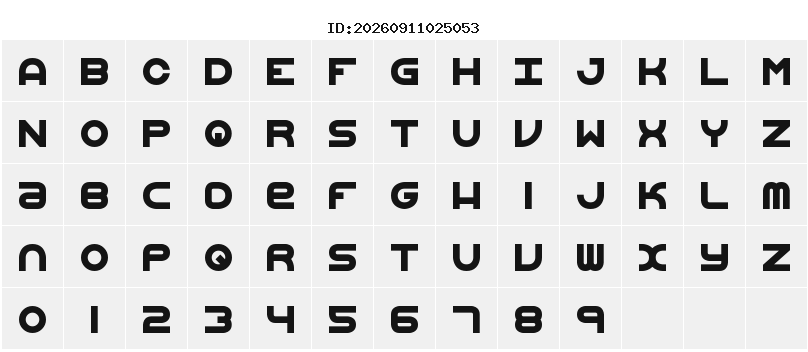
Vertigo Upright 2 BRK Preview
About Vertigo Upright 2 BRK.ttf
Vertigo Upright 2 BRK.ttf is a modern, elegant sans-serif font designed for ultimate readability and visual harmony. Perfect for branding, headlines, web design, and print materials.